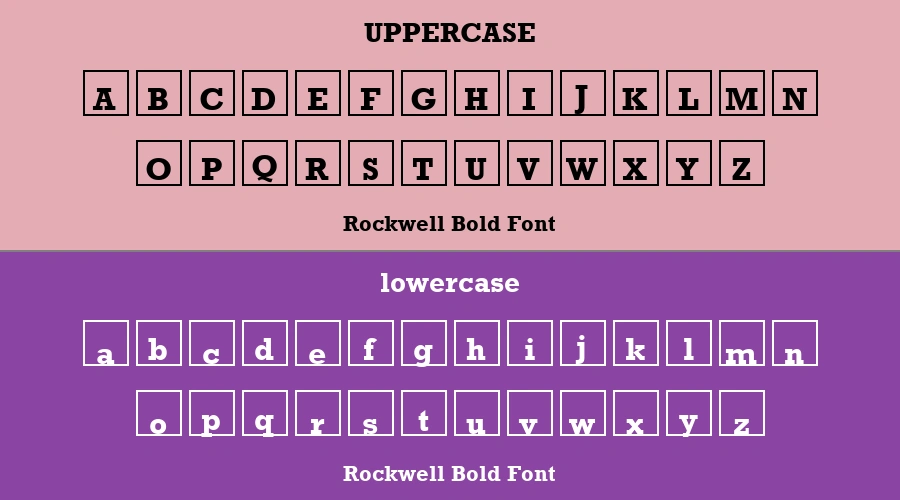
About Rockwell Bold Font
Designed with precision, Rockwell Bold Font merges decorative alternates with visual rhythm in every character. This versatility makes it particularly effective for magazine layout, where precision and historical accuracy directly impact communication quality. Each letterform demonstrates meticulous craftsmanship.
Technical excellence shines through elements like pressure variations and small caps, enhancing typographic versatility. In page numbers settings, Rockwell Bold Font proves its worth through superior scanning accuracy. The thoughtful execution of corner treatment and contemporary relevance ensures professional results.